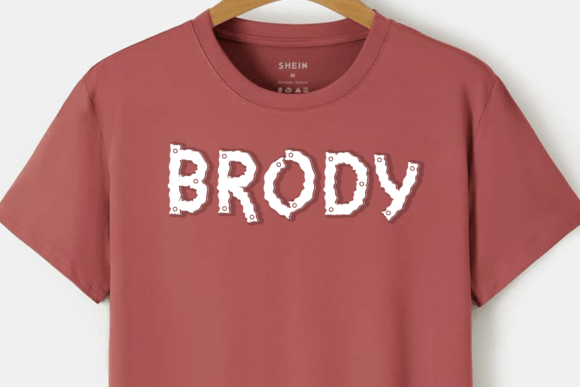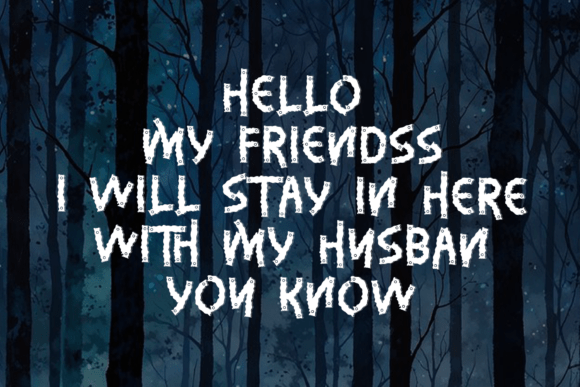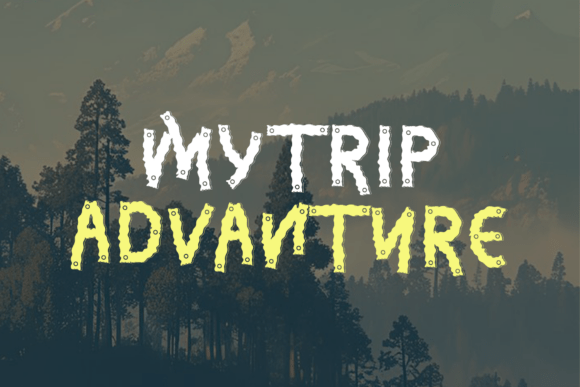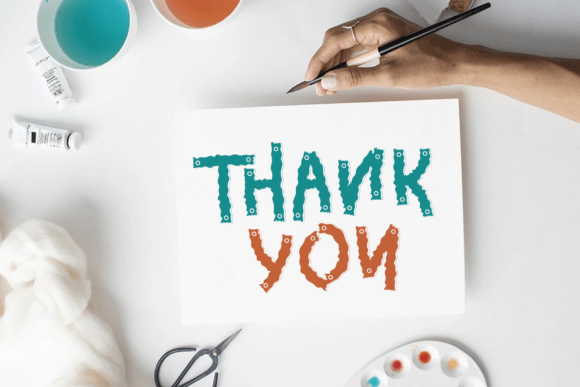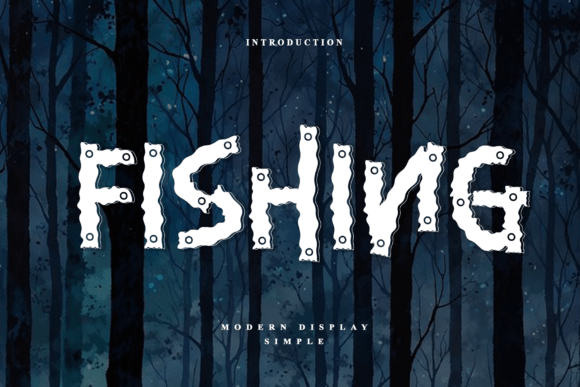
Fishing Font: The Catch of the Day for Your Design Needs
Are you looking for a font that can add a touch of excitement and playfulness to your designs? Look no further than the Fishing Font! This fun display font is perfect for creating eye-catching logos, branding, and quotes that will make your audience hooked. In this article, we’ll dive into the features and benefits of the Fishing Font and explore how it can elevate your design game.
A Unique and Beautiful Touch
One of the standout features of the Fishing Font is its unique and beautiful touch. Every letter has been carefully crafted to give it a distinctive and artistic feel that will make your design come alive. Whether you’re creating a logo, a poster, or a social media graphic, this font is sure to add a touch of personality and whimsy. The Fishing Font is perfect for designers and crafters who want to add a bit of fun and flair to their work.
The Fishing Font is a versatile font that can be used for a variety of design projects. Its playful and eye-catching style makes it perfect for creating logos, branding, and quotes that will grab attention and leave a lasting impression. Whether you’re designing a logo for a fishing company or creating a quote for a social media post, this font is sure to make your design stand out.
Key Features of the Fishing Font
- Unique and beautiful touch: Every letter has been carefully crafted to give it a distinctive and artistic feel.
- Fun and playful style: The Fishing Font is perfect for adding a touch of excitement and playfulness to your designs.
- Perfect for logos, branding, and quotes: This font is versatile and can be used for a variety of design projects.
- Easily readable: Despite its playful style, the Fishing Font is easily readable, making it perfect for use in a variety of contexts.
Why Choose the Fishing Font?
So why choose the Fishing Font for your design needs? Here are just a few reasons:
- Add a touch of personality: The Fishing Font is a great way to add a bit of personality and whimsy to your designs.
- Stand out from the crowd: This font is sure to make your design stand out from the crowd and grab attention.
- Perfect for crafters and designers: The Fishing Font is a great choice for crafters and designers who want to add a bit of fun and flair to their work.
How to Use the Fishing Font
Using the Fishing Font is easy! Here are a few tips for incorporating it into your design projects:
- Use it for headlines: The Fishing Font is perfect for use in headlines and titles, where its playful style can really shine.
- Pair it with other fonts: Try pairing the Fishing Font with other fonts to create a unique and eye-catching look.
- Experiment with colors: The Fishing Font looks great in a variety of colors, so don’t be afraid to experiment and find the perfect hue for your design.
In conclusion, the Fishing Font is a fun and playful display font that is perfect for adding a touch of excitement and personality to your designs. Its unique and beautiful touch, combined with its versatility and readability, make it a great choice for designers and crafters. Whether you’re creating a logo, branding, or quotes, the Fishing Font is sure to make your design come alive!